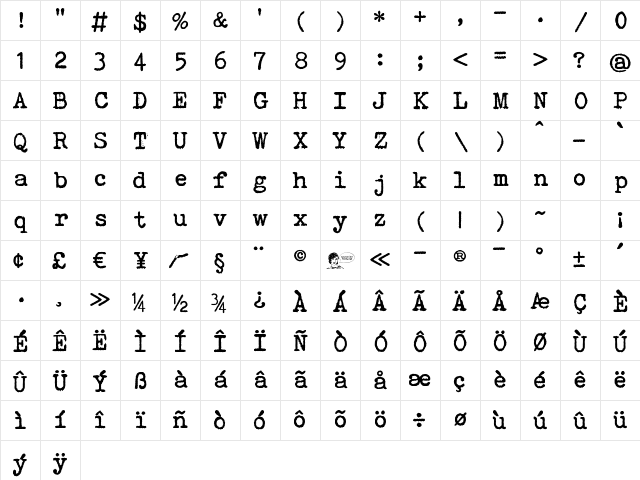
Bohemian Typewriter Normal
Foundry: Lukas Krakora
Designer: Lukas Krakora
Design Context for Bohemian Typewriter
Bohemian Typewriter uses fixed-width spacing throughout, giving it the structured, systematic character associated with coding environments and technical documentation.
Pro Tip: Use Bohemian Typewriter with slightly increased line-height for extended reading - fixed-width spacing can feel dense in longer passages without extra breathing room.